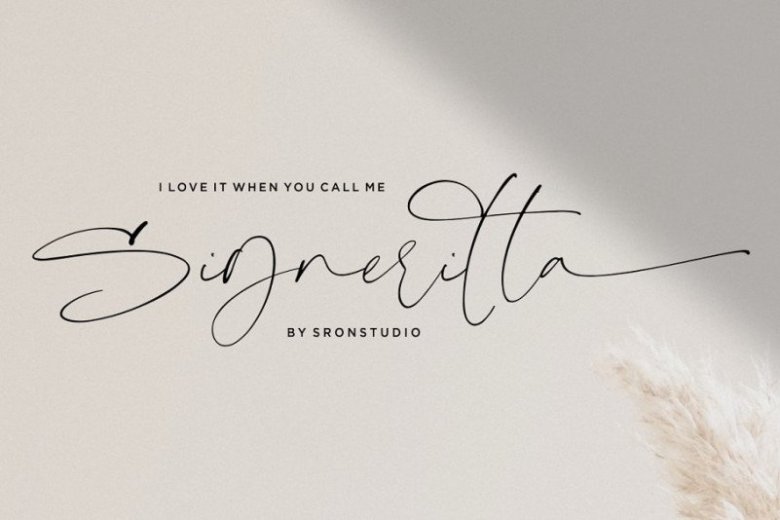
Signeritta Signature Font
This is a new handwritten script font, it’s a combination of smooth paths and strong strokes that gives you a unique casual handwriting effect. Perfect for designs that require feminine style but still have a strong touch. Introducing Signeritta Font. It’s design and shared by Sronstudio. It’s a luxury signature font, this font Is perfect for branding, invitation, stationery, wedding designs, social media posts, advertisements, product packaging, product designs, label, photography, watermark, special events or anything.